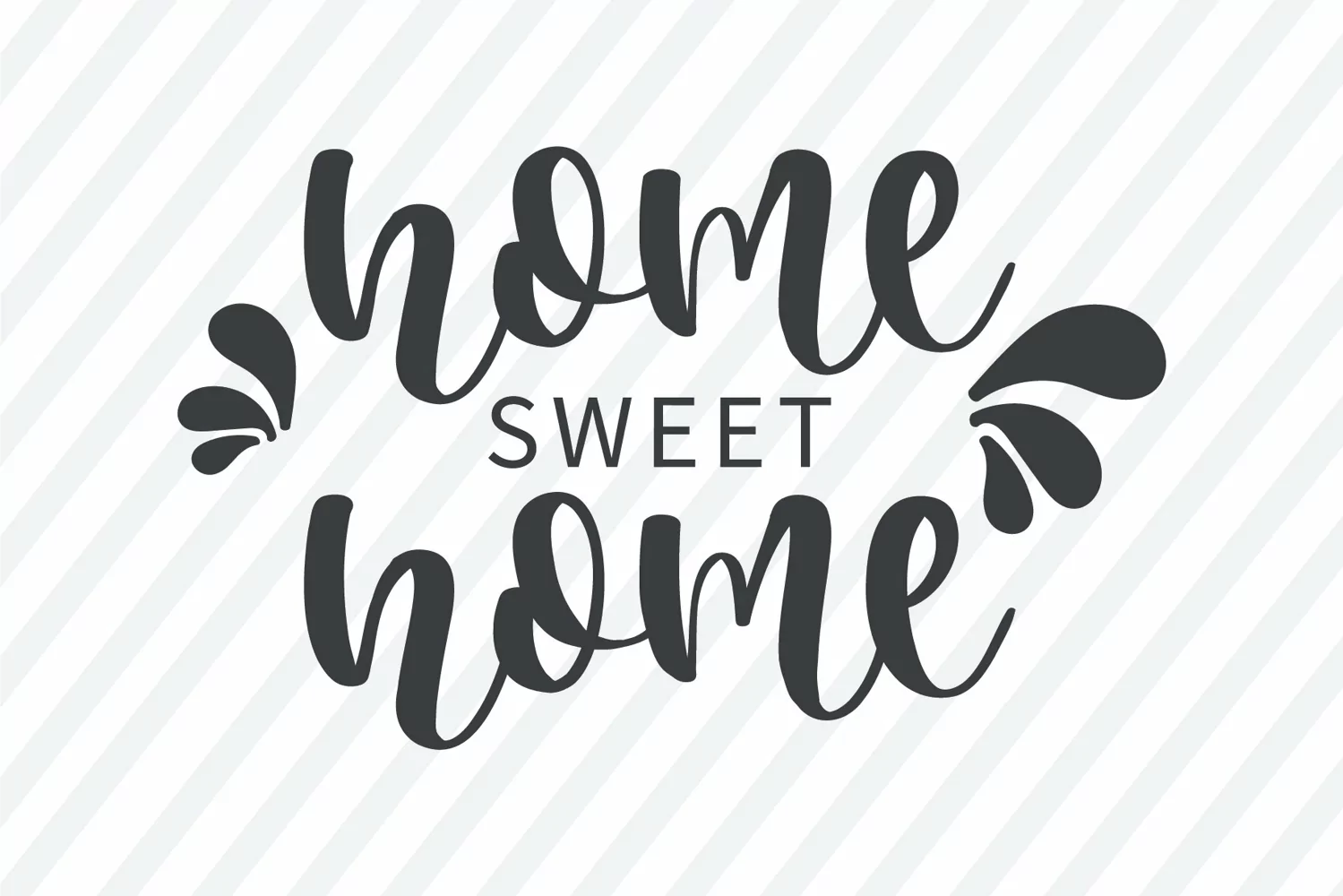
Farmhouse Kitchen is a quirky and relaxed handwritten font. Whatever the topic, this font will be a wonderful asset to your font library, as it has the potential to enhance any creation.